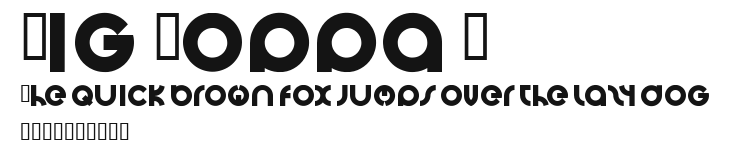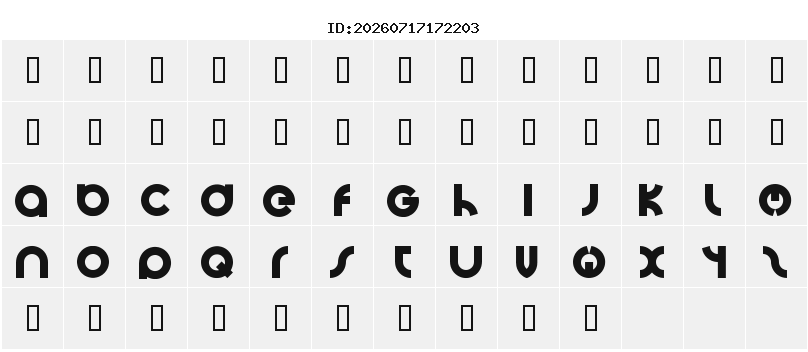
• Font Name: Big Poppa E
• Designer: Adrien Sulliven Dredd
• Manufacturer: Sanctum Sanctorum Productions
About Big Poppa E.ttf
Big Poppa E.ttf is a modern, elegant sans-serif font designed for ultimate readability and visual harmony. Perfect for branding, headlines, web design, and print materials.